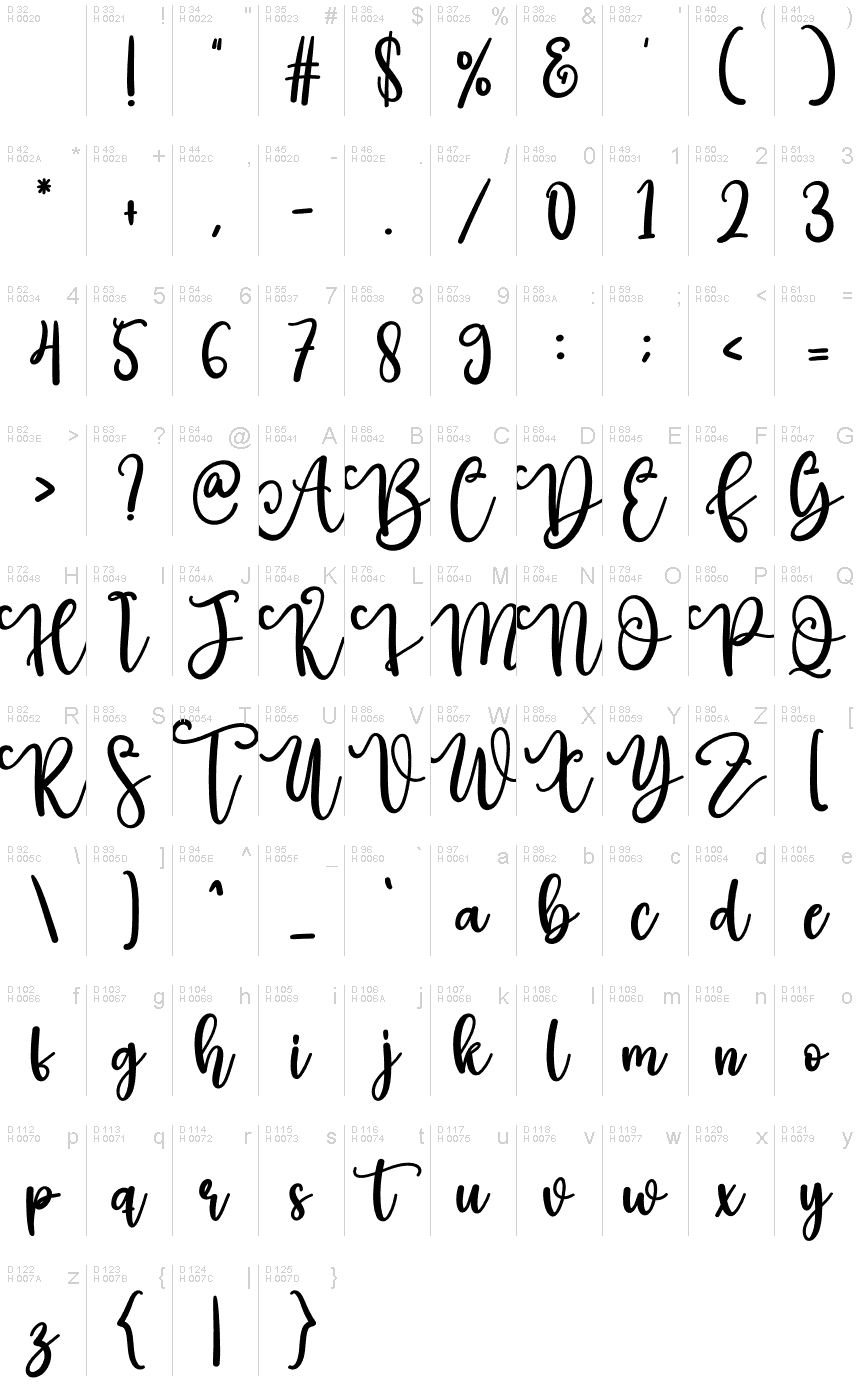
January
January is a stunning handwritten font designed by scratchones. It boasts a unique style that is both elegant and playful, making it perfect for a wide range of projects. Whether you're creating wedding invitations, greeting cards, or branding materials, January's flowing curves and charming imperfections will add an authentic touch to your designs. This versatile font offers a range of weights from light to semi-bold, ensuring that it can be used in any context. Its narrow width also makes it ideal for headlines and titles that need to fit into tight spaces. Make your projects stand out with January - the handwritten font that adds personality and flair to every design!
the latest style letters are perfect for wall displays, wedding invitations, social media post logos,
advertisements, product packaging, product designs, labels, photography, watermarks, invitations, stationery,
and any project that requires taste handwriting.
the latest style letters are perfect for wall displays, wedding invitations, social media post logos,
advertisements, product packaging, product designs, labels, photography, watermarks, invitations, stationery,
and any project that requires taste handwriting.